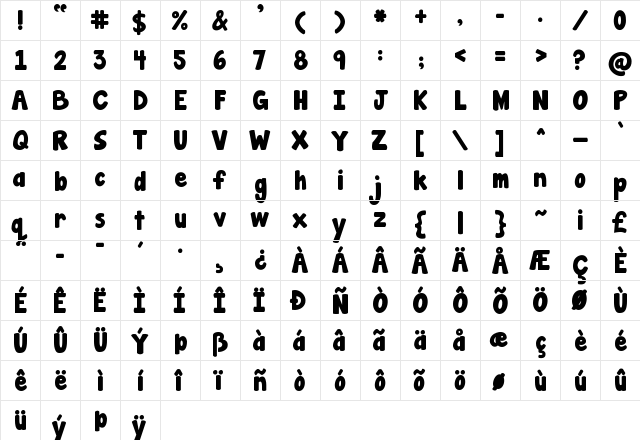
Janda Manatee Solid Regular
| Foundry | Kimberly Geswein |
| Designer | Kimberly Geswein |
Design Context for Janda Manatee Solid Typeface
Janda Manatee Solid is a composed and adaptable typeface that performs quietly and consistently across a wide range of design contexts.